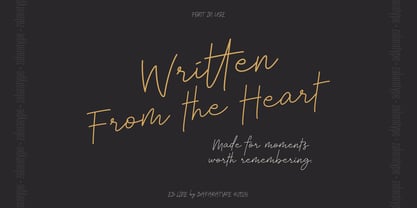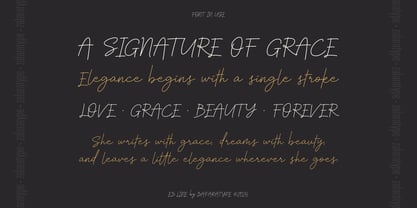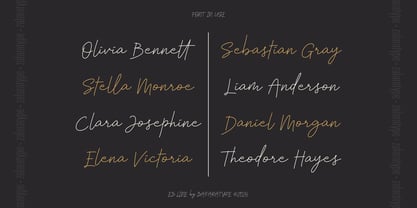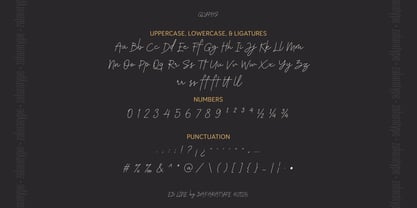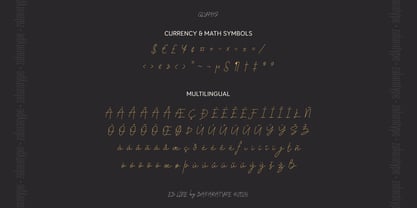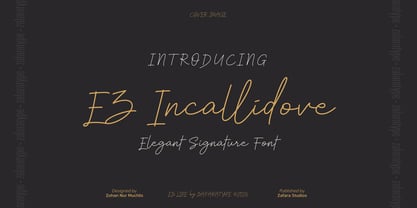
EZ Incallidove
by Zafara Studios
The EZ Incallidove Font Family was designed by Zohan Nur Muchlis and published by Zafara Studios. EZ Incallidove contains 1 styles. More about this family
EZ Incallidove is a delicate and elegant signature script that brings a graceful personality through its flowing strokes, refined curves, and naturally connected letterforms. With its smooth and expressive character, it feels romantic, personal, and effortlessly sophisticated, giving every word a beautiful handwritten touch.
Designed to capture the beauty of genuine handwriting, EZ Incallidove is perfect for branding, wedding invitations, greeting cards, quotes, logos, social media, packaging, stationery, invitations, and elegant creative projects. Whether you're creating something heartfelt, luxurious, or timeless, it adds a graceful and personal touch to every design.
Designers: Zohan Nur Muchlis
Foundry: Zafara Studios